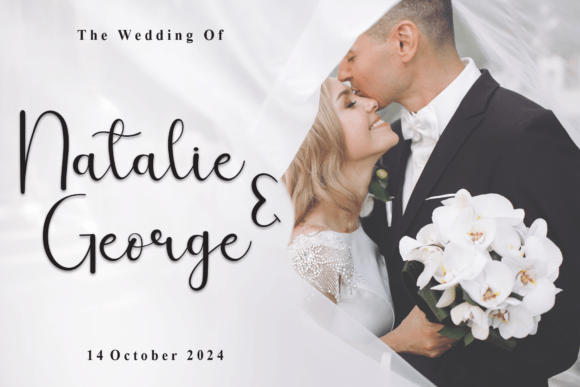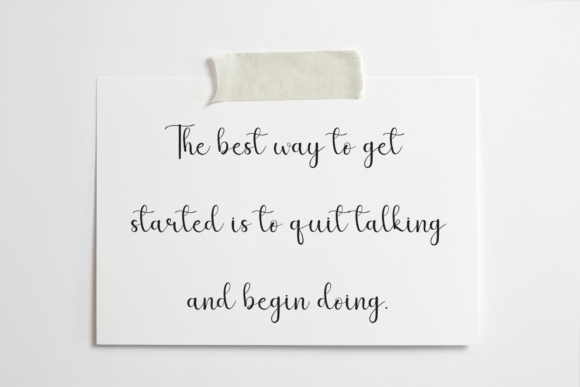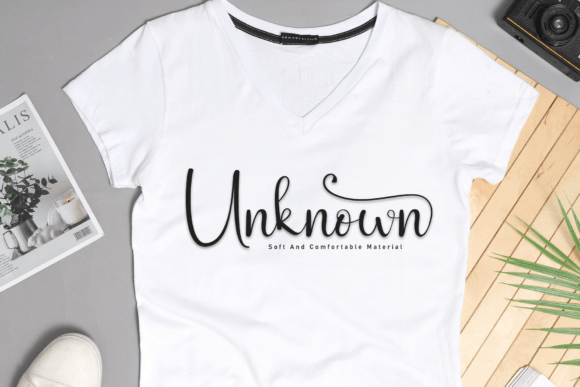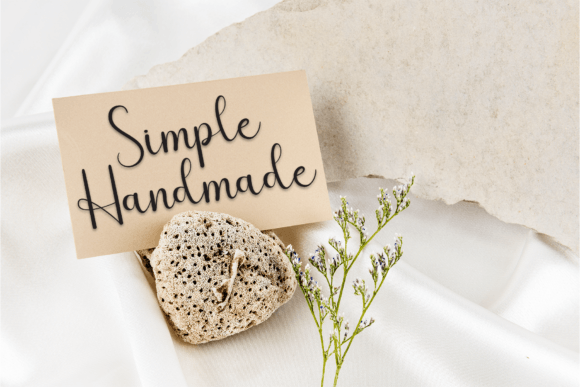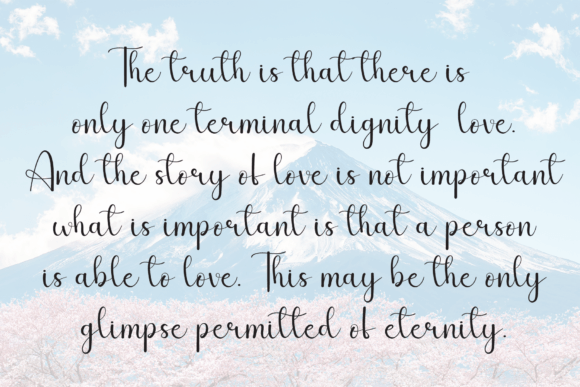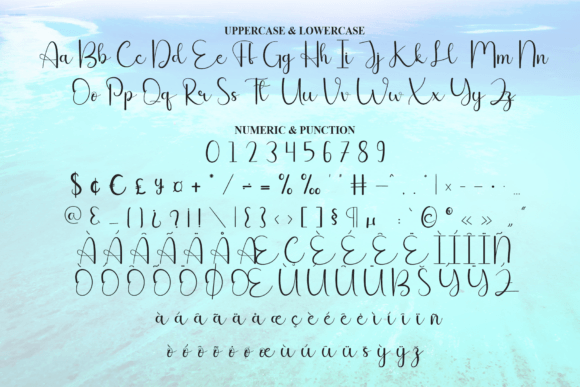
Introduction to Ocean Blue Font
Introducing an endearingly delightful handwritten display font with a touch of sweetness – perfect for infusing an element of fun into your design projects.
Its adorable and playful nature makes it the perfect choice for crafting dreamy wedding invitations or heartfelt cards Immerse your creations in an aura of positivity and joy with this font that adds just the right amount of fun to every script.